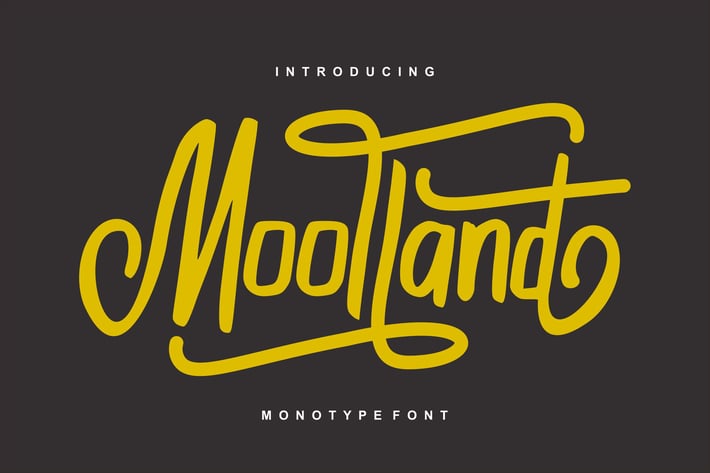
Moolland | Monotype Script Font
Moolland | Monotype Script Font with a calligraphy style, So beautiful on invitation like greeting cards, branding materials, business cards, quotes, posters, and more!